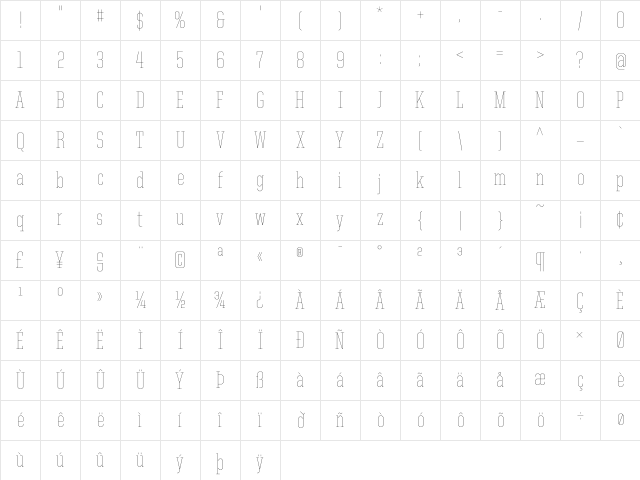
Complete United Serif Cond Thin glyph index. Displaying only characters natively supported by United Serif Cond Thin font.
United Serif Cond carries the refined structure of traditional serif typography, with bracketed terminals and considered proportions that communicate credibility and craft. Its slender proportions lend an understated elegance to any composition. Its narrow stance lets it pack a punch even in space-constrained designs.
Pro Tip: Use United Serif Cond with generous line-spacing for the most refined reading experience - its light weight benefits from room between lines.